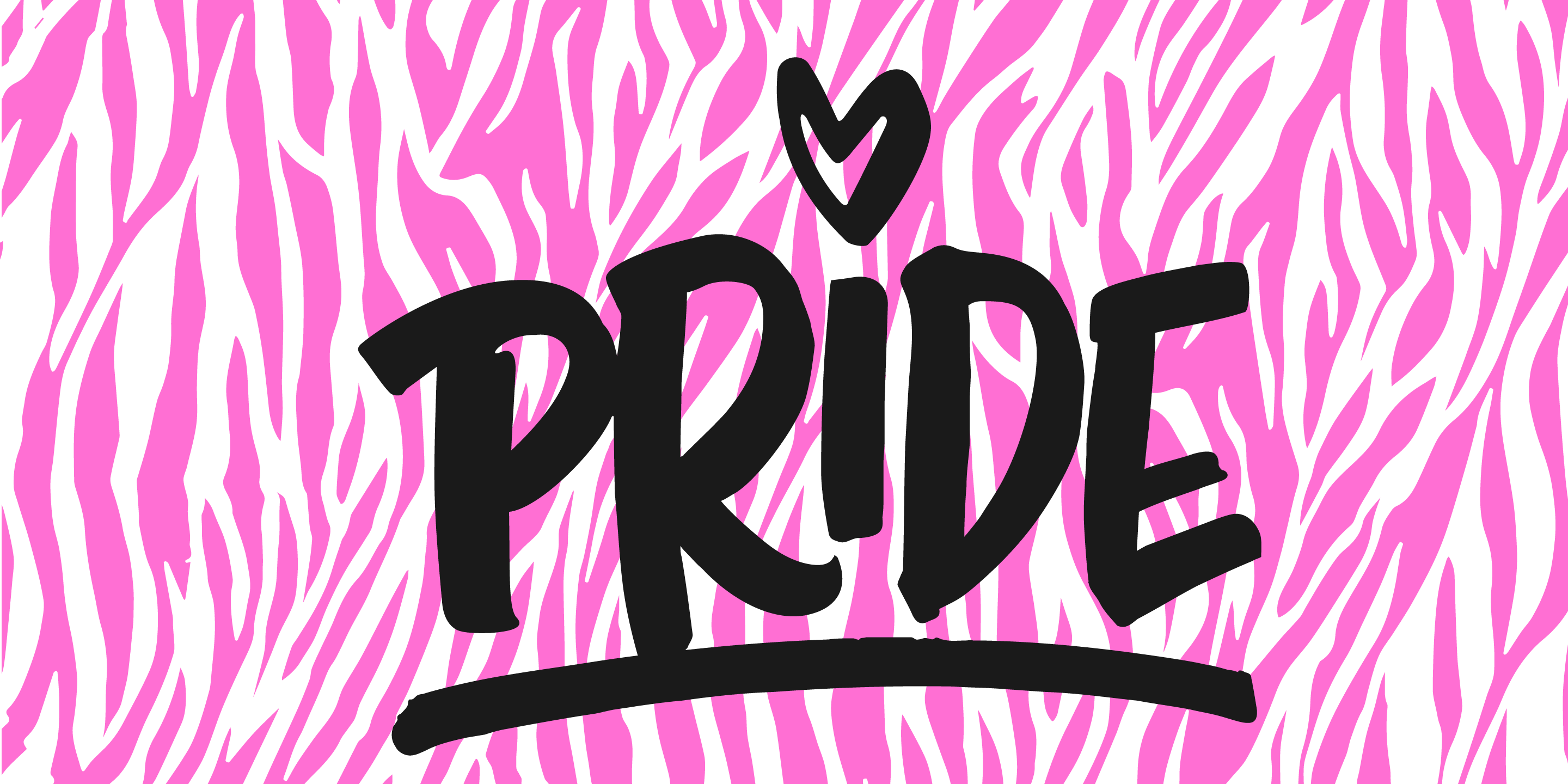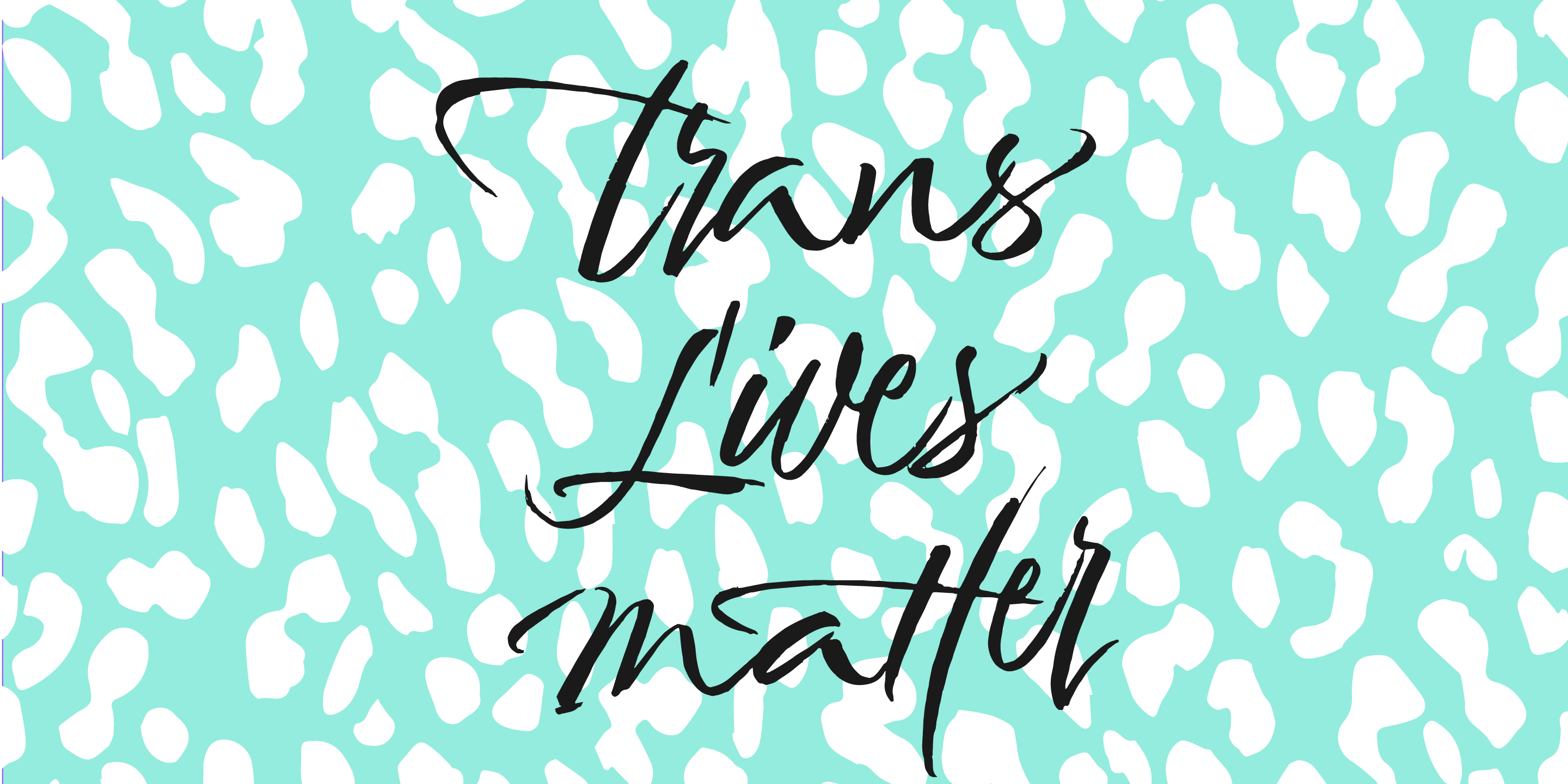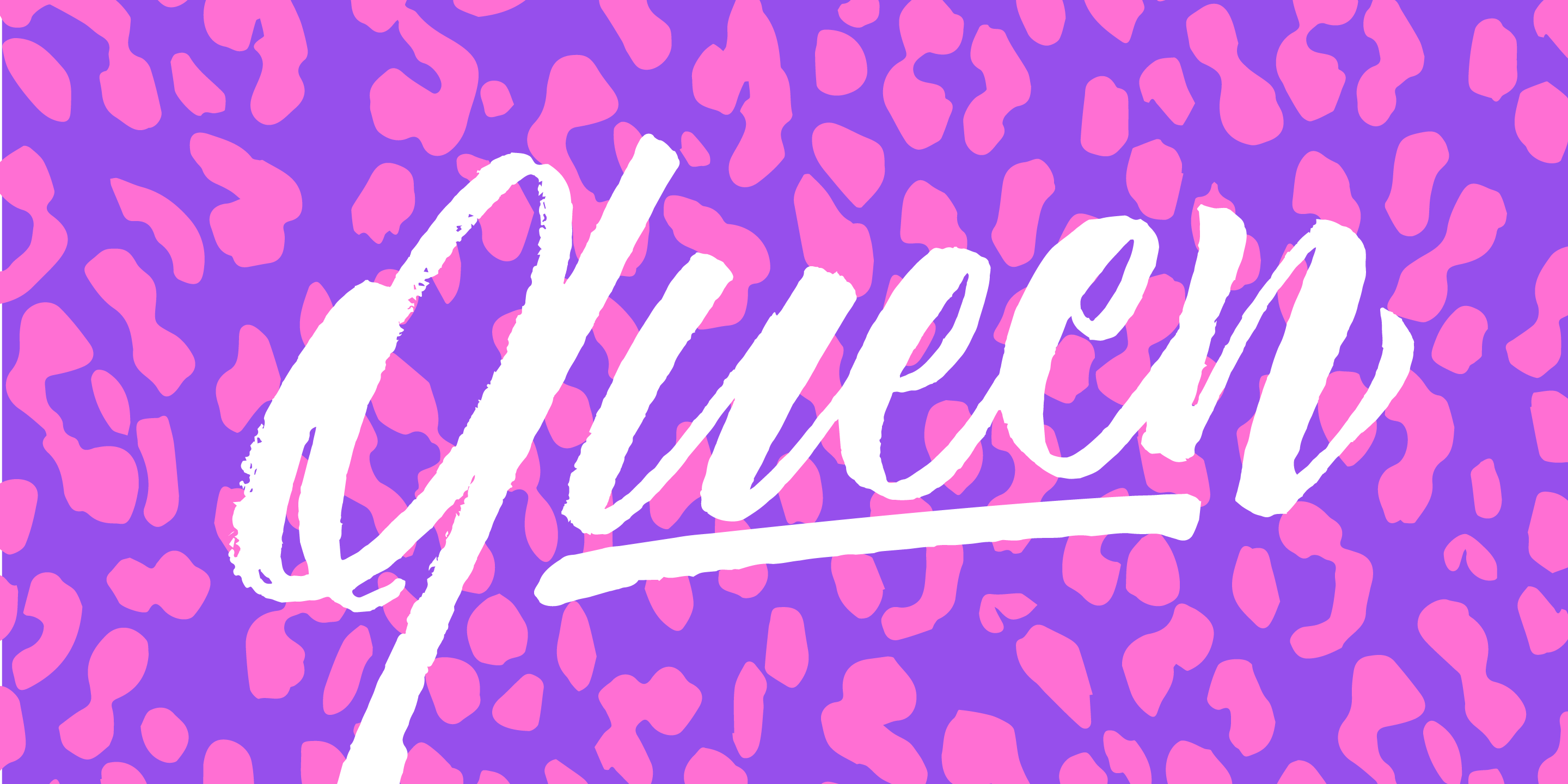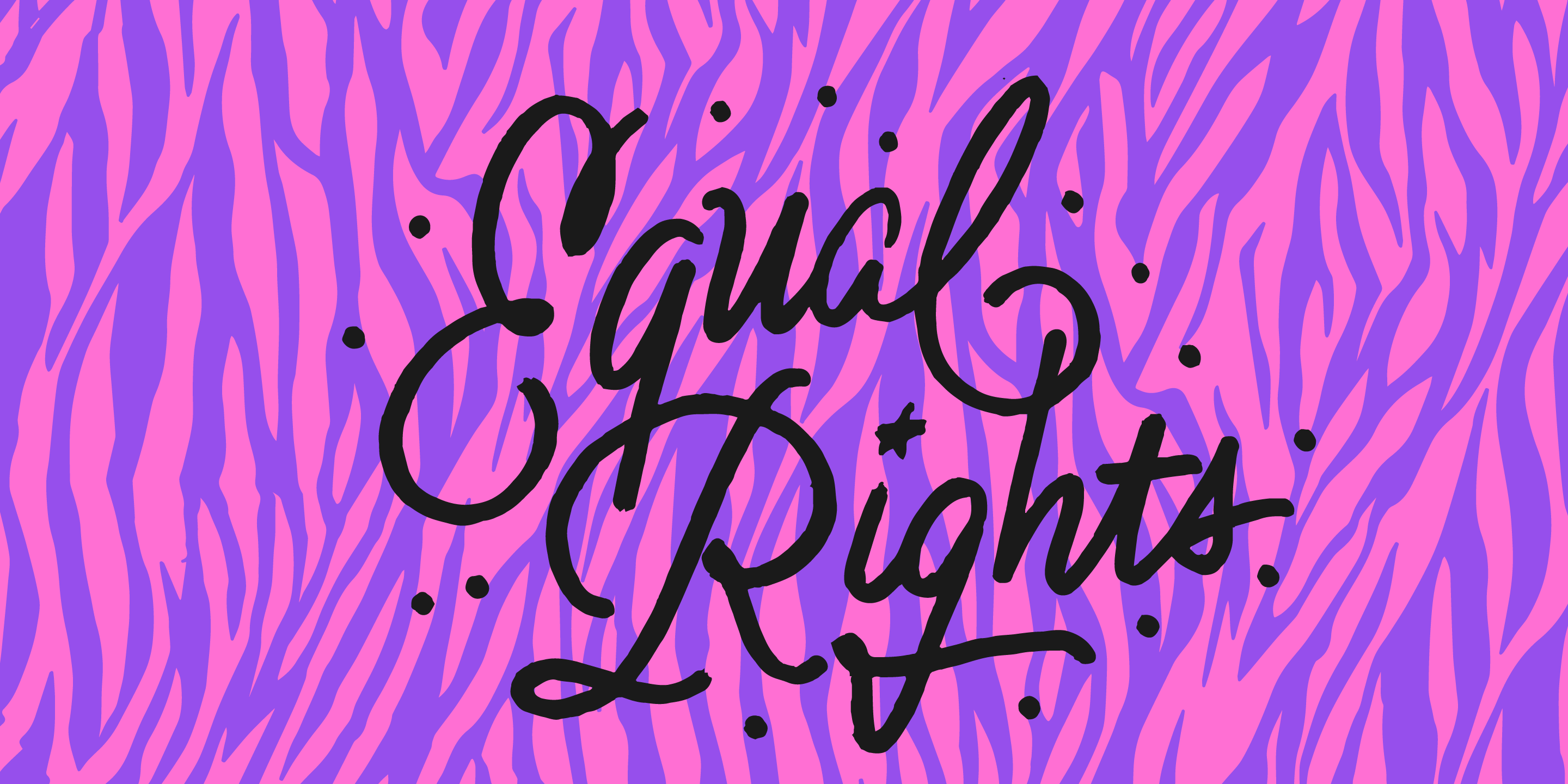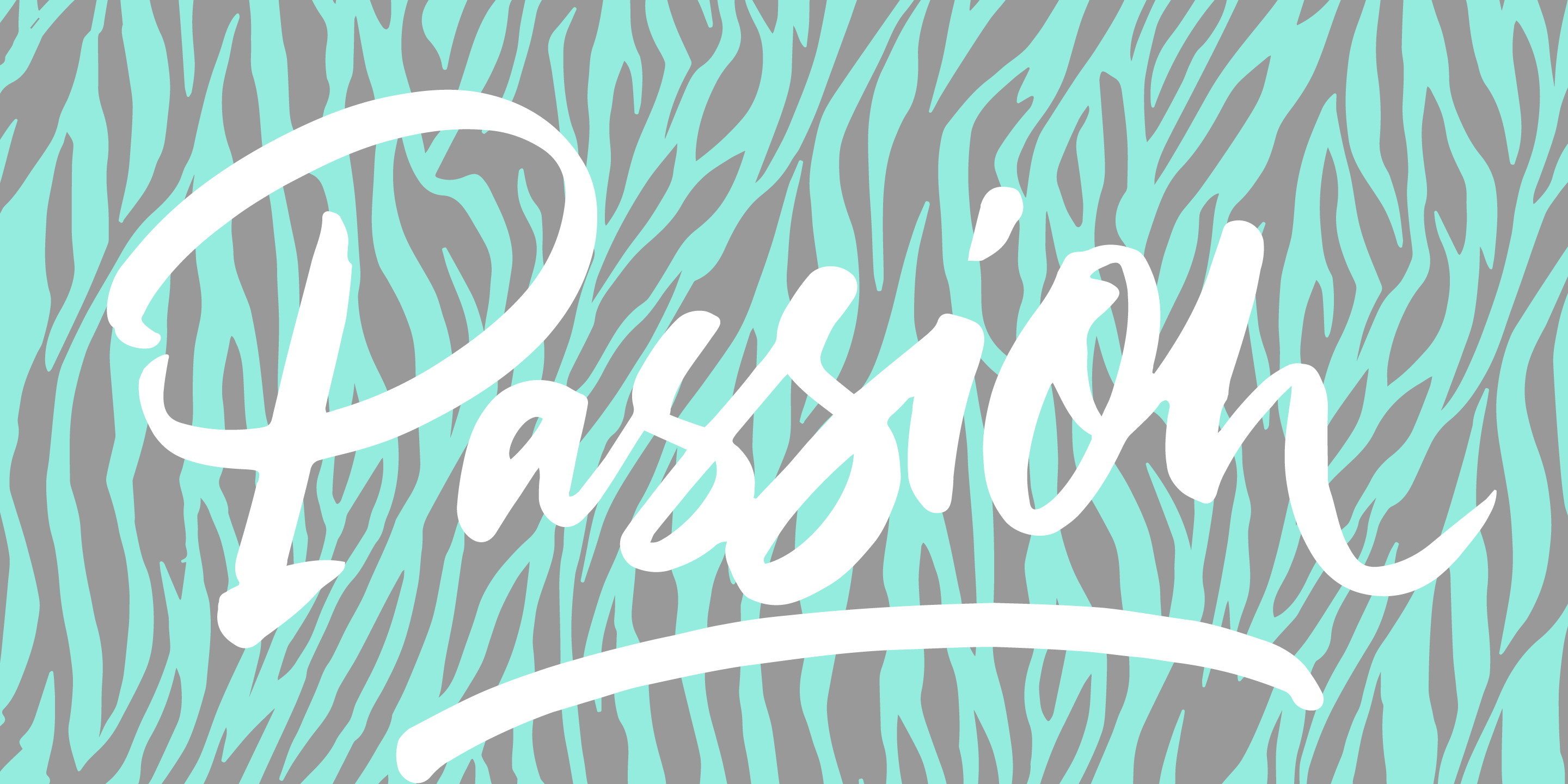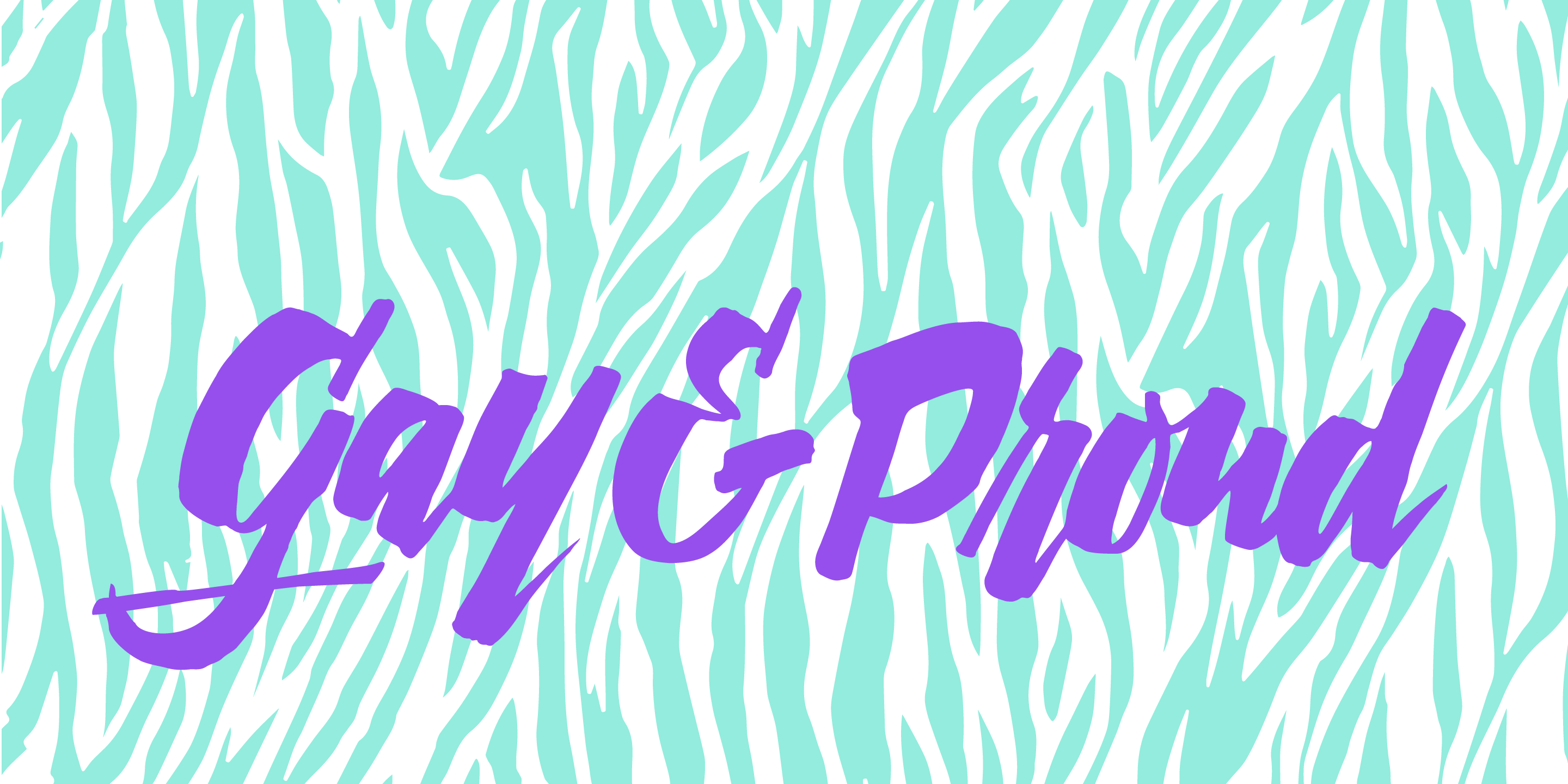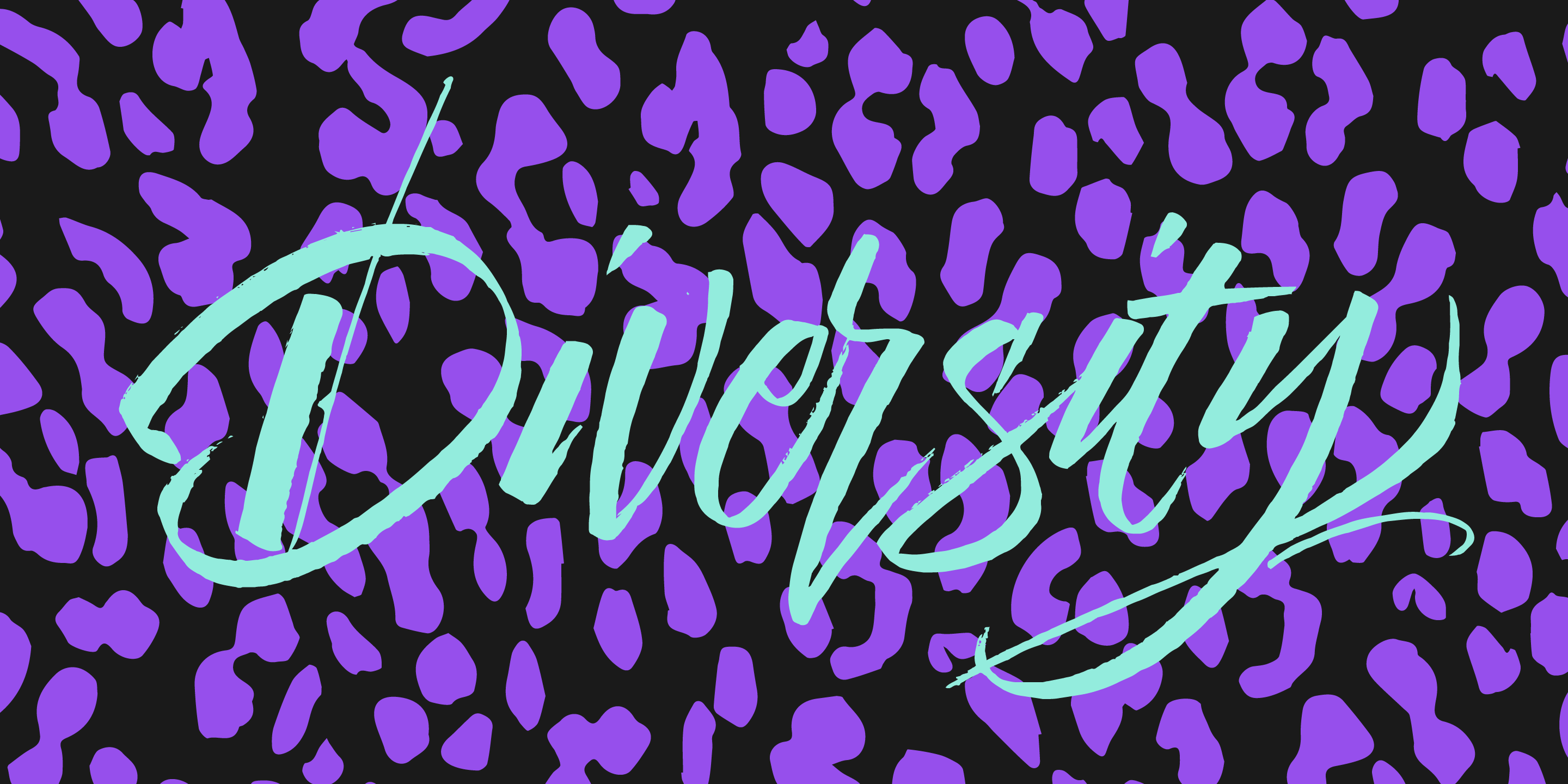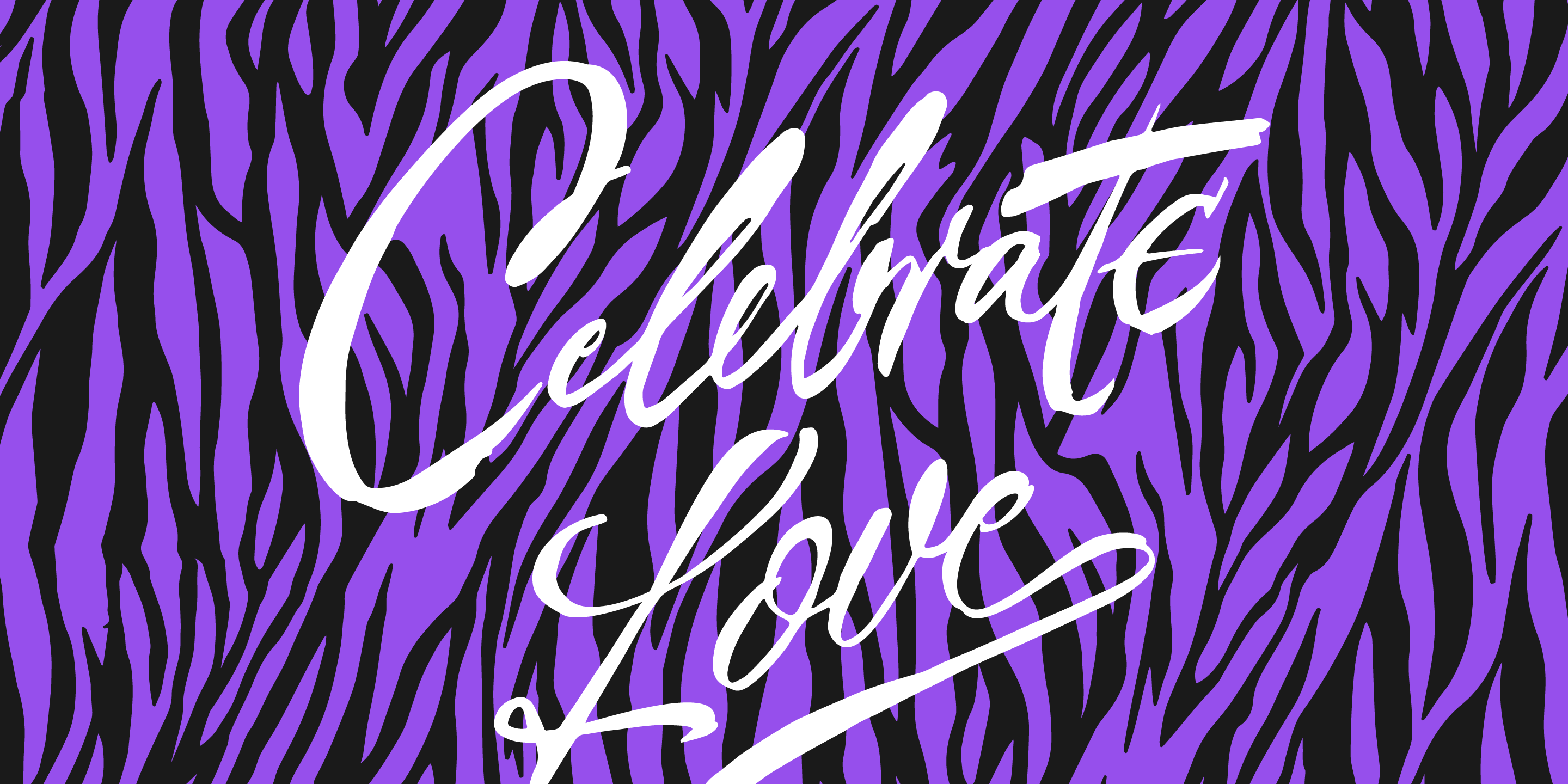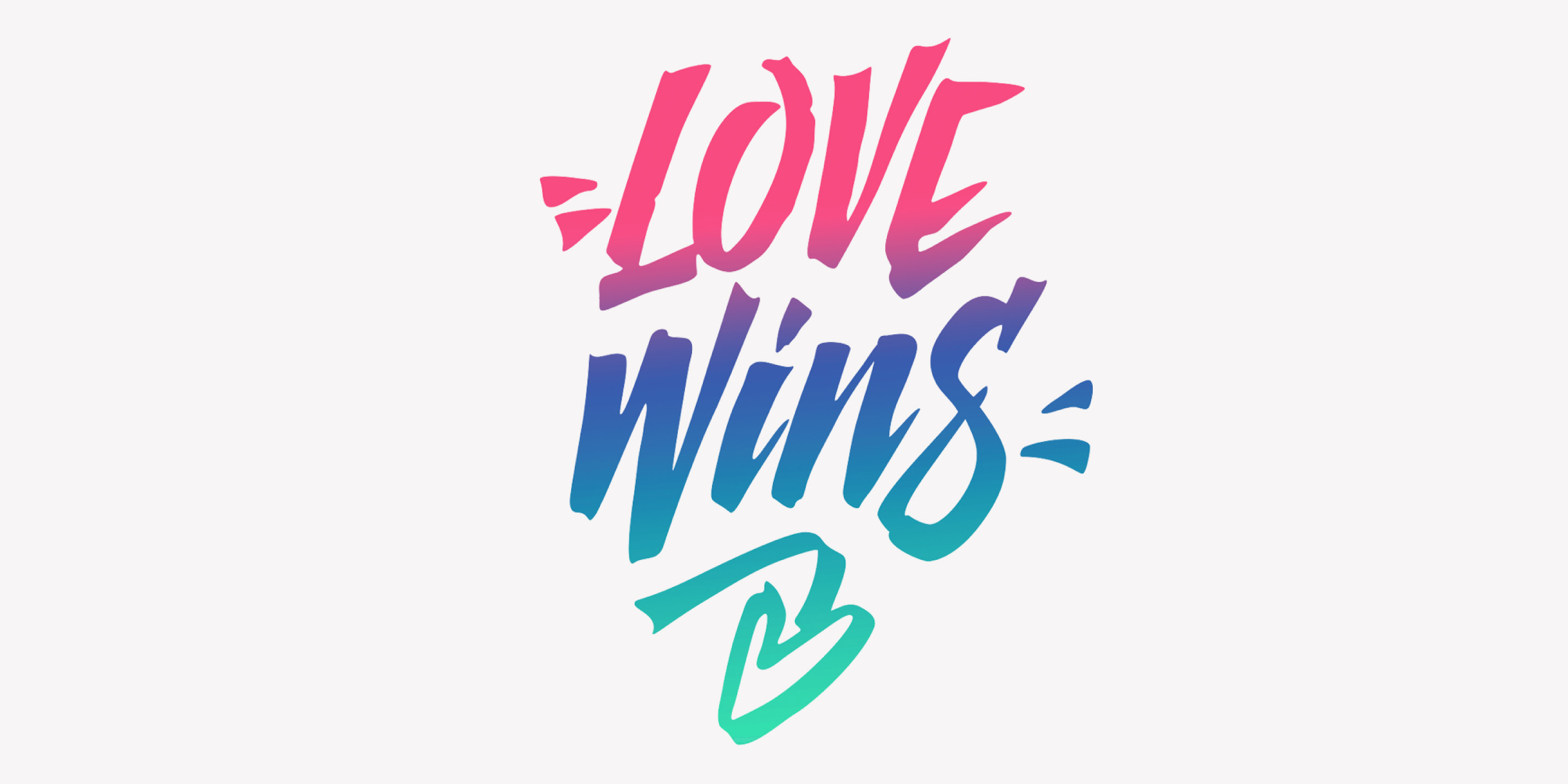
LOVEWINS
Lettering Collection
Love Wins
Designed by Resistenza Type FoundryAs Letter crafters we love seeing the signs people design for their different pride parades, and we wondered… Why don’t we create a collection of handcrafted lettering to share some love and to add a typographic realness to the party? Love Wins Font is a series of 60 phrases handwritten with expertise and love specially designed to celebrate diversity. The lettering was crafted with different calligraphic tools creating diverse aesthetics. You can use them to create your signs, t-shirts, stickers, poster, banners.. all you need is to spread love during your Pride Celebrations (or day-to-day life!).